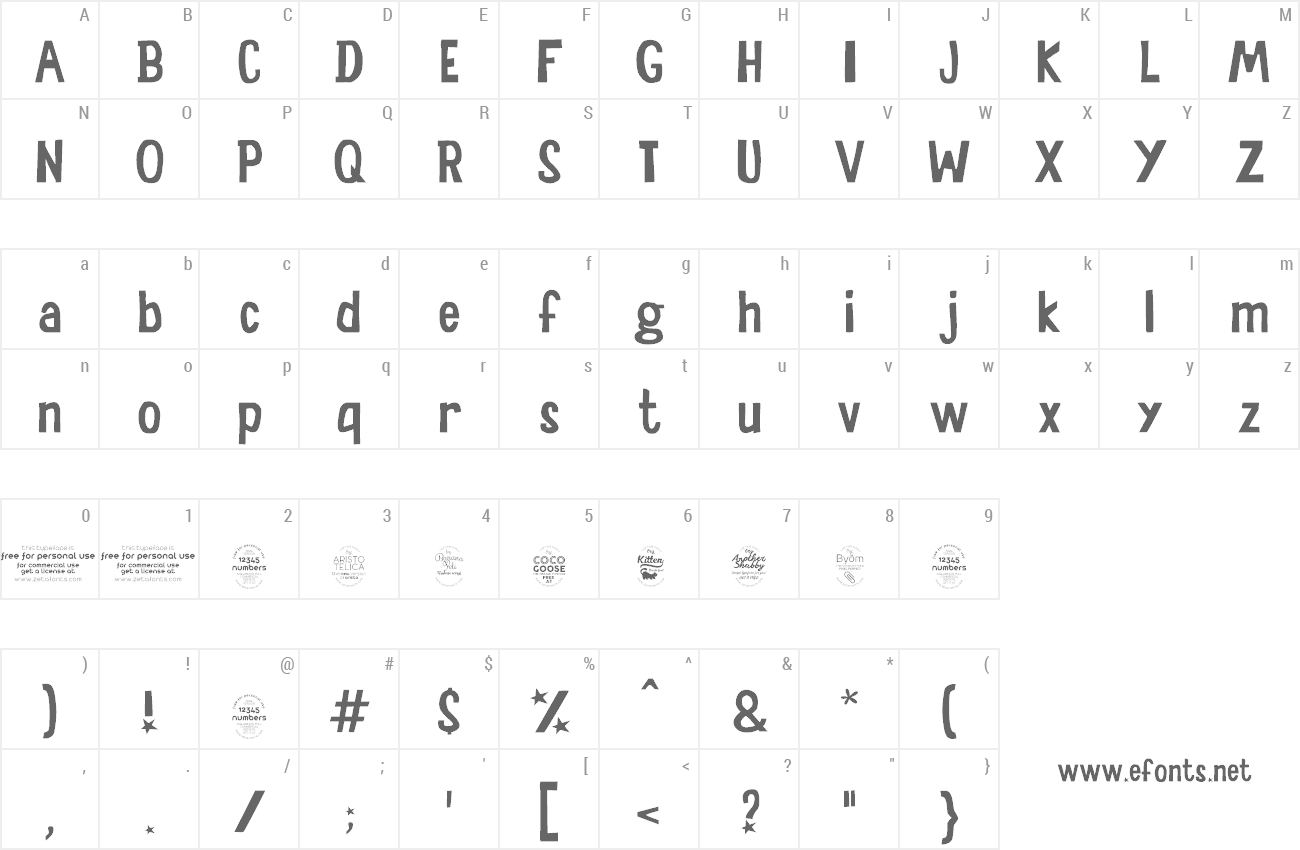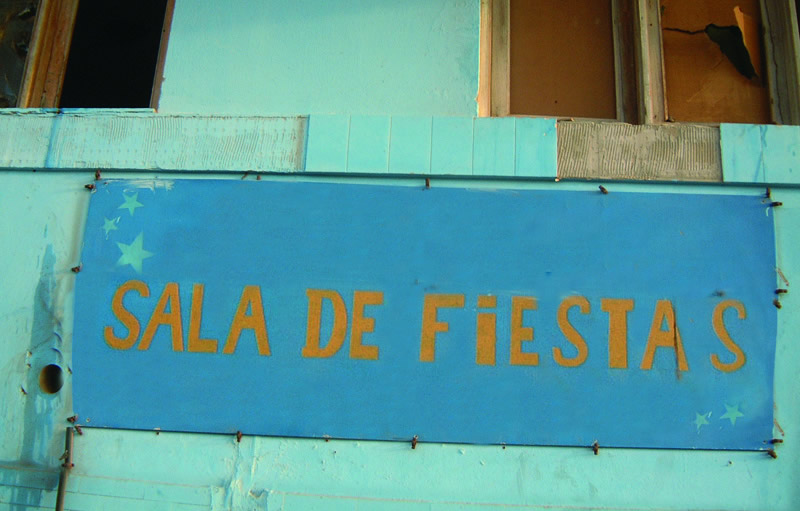
Sala de Fiestas is inspired by a handpainted sign for a ballroom in the island of Fuerteventura. The missing letters were drawn keeping the existing ones' idiosyncrasies (casual serifs, star-shaped dots). Though hand-drawn the font manages unexpectedly to be very readable as body text, with the proportions of a condensed sans serif. This trial font is TOTALLY FREE for NONCOMMERCIAL USES. For commercial uses you must get the full commercial typeface at: http://www.zetafonts.com/sala-de-fiestas Have a question?: info@zetafonts.com |